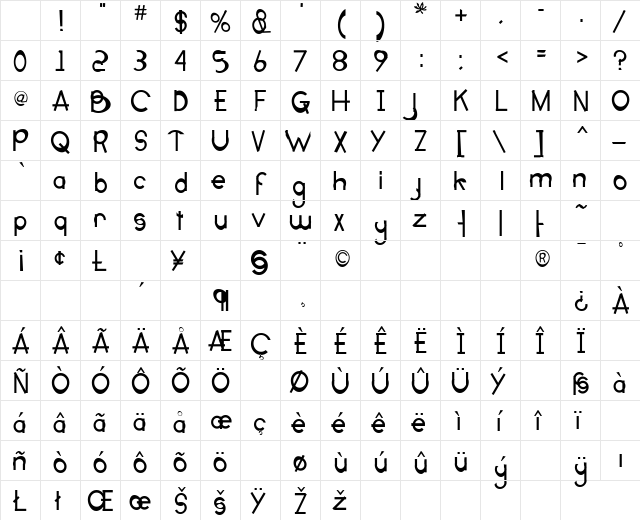
OccidentalDismount Regular Free Font
OccidentalDismount Regular
Design Context for OccidentalDismount
OccidentalDismount is a composed and adaptable typeface that performs quietly and consistently across a wide range of design contexts.
Pro Tip: Use OccidentalDismount in both headline and body roles to test its range before committing to a single application.